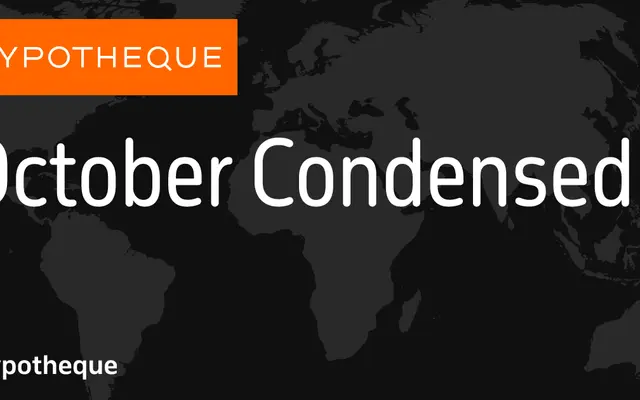
October Condensed
A condensed grotesque forming part of Typotheque's October system, spanning nine weights with matching italics across condensed, regular and compressed widths.
Part of the October type system from Typotheque, the Condensed subfamily runs from Hairline to Black with a full set of italics at every weight. The wider system encompasses October, October Condensed and October Compressed, all available as a variable font, giving designers considerable range across weight and width axes. The naming convention, with each style named after a world city, adds a distinctive identity to what is otherwise a workmanlike grotesque suite.
October Condensed is a condensed sans-serif with a wide weight range from Hairline to Black, sitting within a broader system that includes regular and compressed widths, characteristic of contemporary grotesque families designed for versatile typographic use.